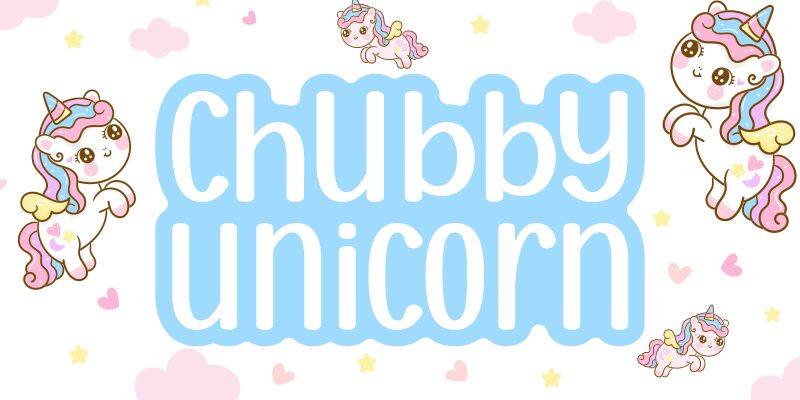
Introducing Chubby Unicorn, a cartoon, comic display font created by the talented Nazara family. Perfect for fun projects such as children's books, magazines or greeting cards. Bring your ideas to life with this unique and charming typeface.
Chubby Unicorn